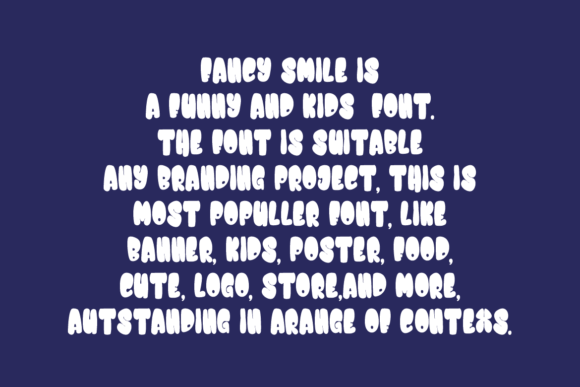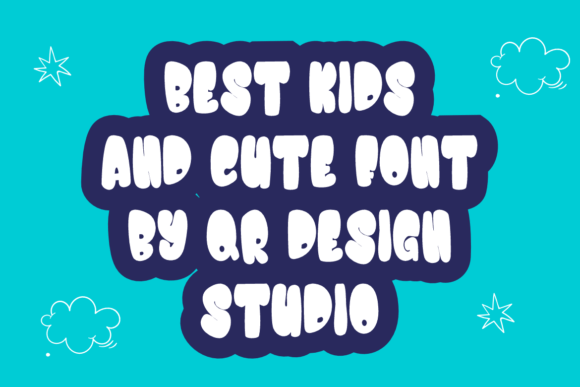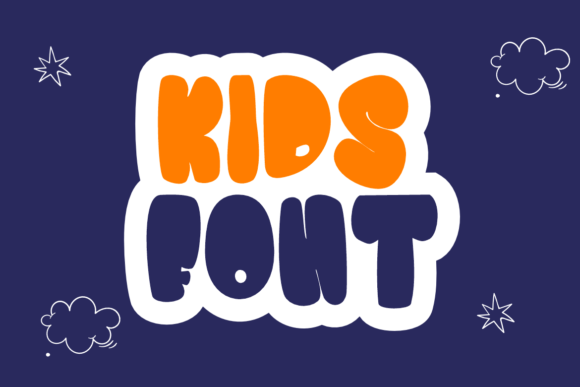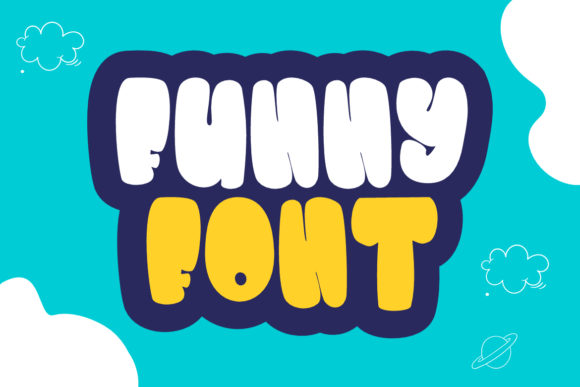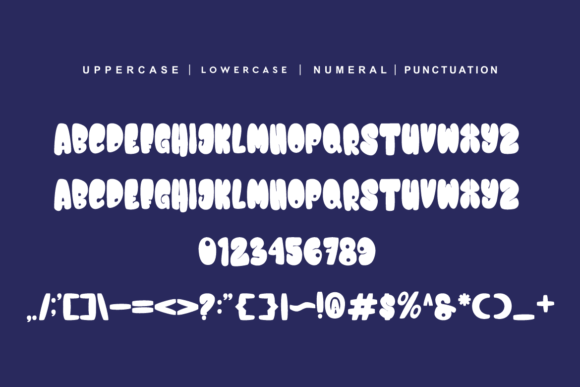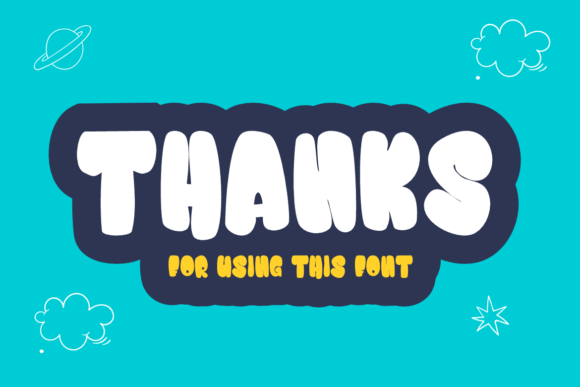
Introduction to Fancy Smile Font
Fancy Smile Font is a bold and authentic display font.
The font is suitable for any branding project like kids, food, posters, logos, sports, and many more Outstanding in a wide range of contexts.
Key Features of Fancy Smile Font
Why Choose Fancy Smile Font?
Fancy Smile Font offers exceptional quality and versatility, making it a valuable addition to your design toolkit. Whether you’re creating for personal projects or commercial use, Fancy Smile Font delivers professional results.